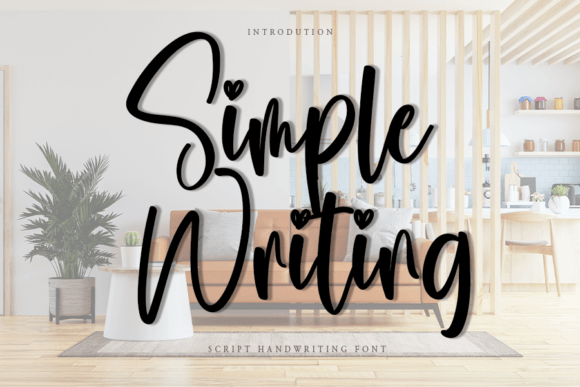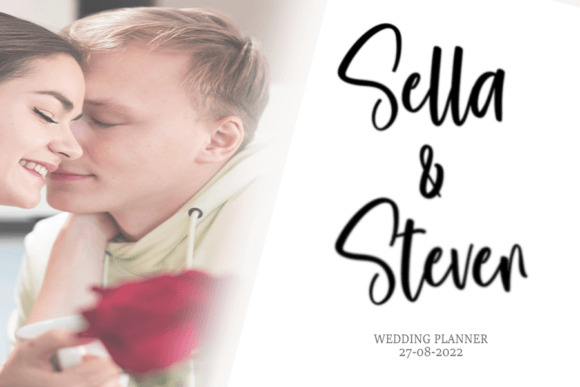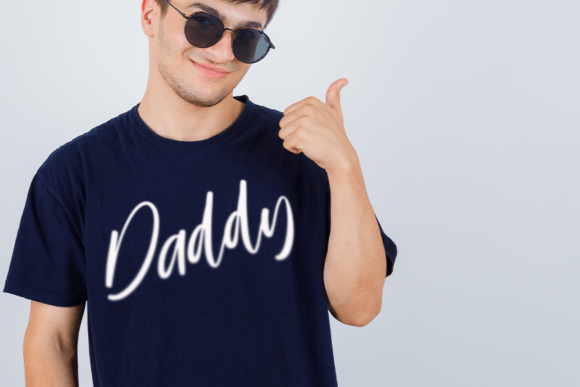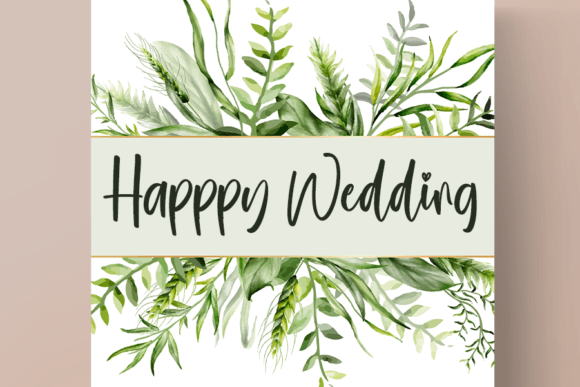
Simple Writing Font
About the Simple Writing Font
We are excited to introduce Simple Writing Font, a must-have typeface for any serious designer. Simple Writing is a gorgeous handwritten font that will make your work stand out through its elegant and curvy lines. It is perfect for product packaging, branding projects, magazine covers, social media posts, weddings, or anything that needs a sweet, handwritten touch.
Simple Writing Font Usage Examples
Simple Writing Font Example